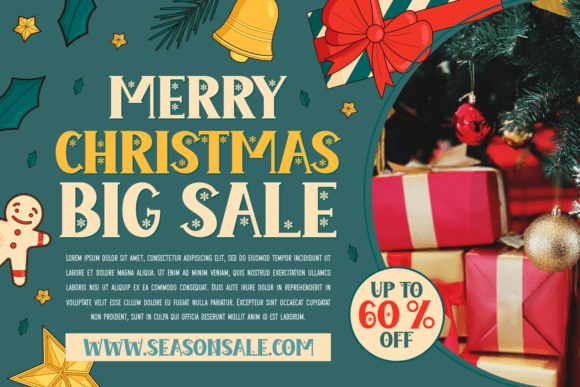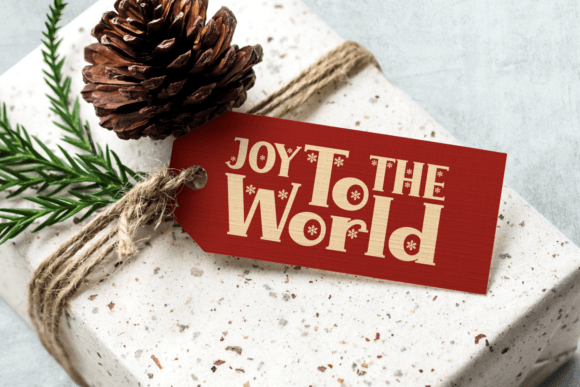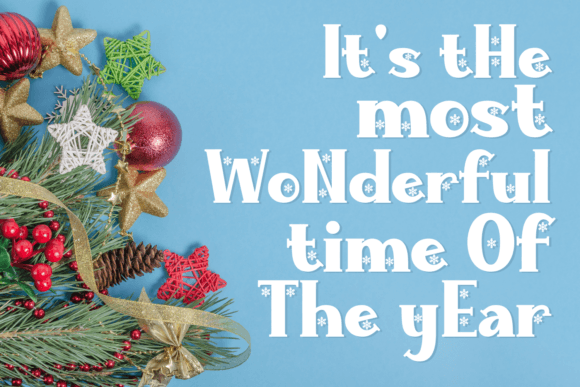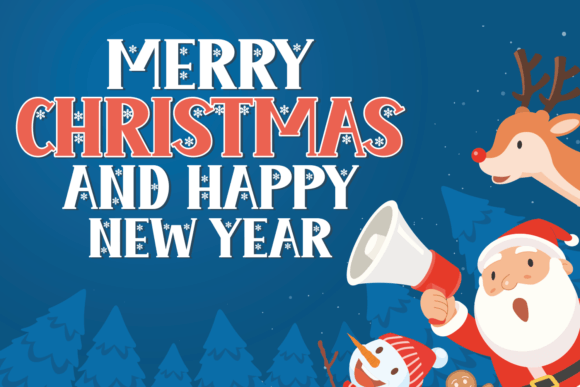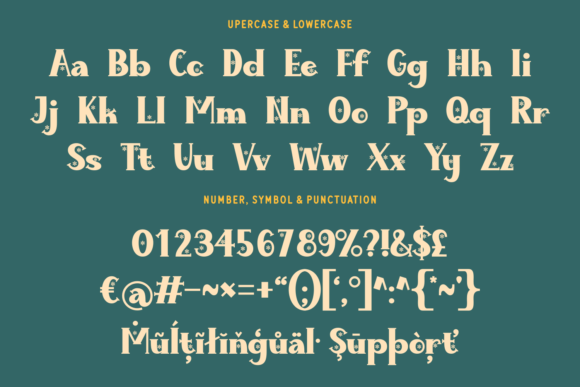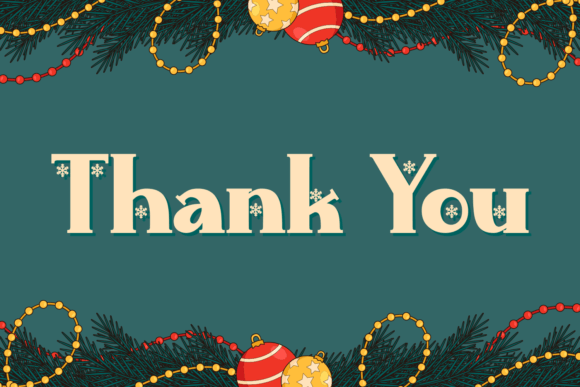
The Magic of Christmas Snowtext Font
Have you ever found yourself browsing through design inspiration boards on a cold winter’s evening, dreaming of the perfect font to capture the essence of the holiday season? If so, you’re not alone. As designers, we’re always on the lookout for that one special font that can transport our creations to a world of festive wonder. For those moments, Christmas Snowtext Font is here to save the day.
This joyful and festive decorative font is the perfect addition to any designer’s library, guaranteed to elevate any project with its magical charm. Whether you’re creating holiday cards, social media graphics, or even a festive blog post, Christmas Snowtext Font has the potential to make your designs truly shine. With its unique blend of whimsy and elegance, this font is an absolute must-have for any designer looking to add a touch of Christmas magic to their work.
Key Features of Christmas Snowtext Font
- Font Style: Unique, handwritten, and decorative font with a festive feel, perfect for Christmas and winter-themed designs.
- Unique Characteristics: Features intricate snowflakes and festive patterns, adding a touch of magic to your designs.
Designer Review: Christmas Snowtext Font
Overall, I’d say the Christmas Snowtext Font has its charm. Here are some things it gets right:
- ✨ Unique aesthetic: The font has a fun, playful feel to it, which is perfect for festive designs and projects.
- ✨ Versatility: While it’s marketed as a Christmas font, it could work well for other winter-themed projects or even for a whimsical feel in general design.
- ✨ Readability: The font is generally easy to read, even at smaller sizes, which is essential for designs where legibility matters.
- ⚠️ Limited character set: The font might not include all the characters you need for a particular project, which could be frustrating if you’re working with a specific language or character set.
- ⚠️ Not suitable for body text: While the font works well for headlines and titles, it might not be the best choice for body text due to its playful, ornate nature.
- ⚠️ Potential for overuse: The font’s festive feel could become overwhelming if used too extensively, so be sure to balance it with other design elements.
Overall, the Christmas Snowtext Font is a fun and unique addition to any design toolbox. While it has some limitations, it can add a special touch to festive designs and projects.
The Christmas Snowtext Font is ideal for creating festive holiday designs, such as:
- Holiday cards and invitations
- Christmas party decorations and signs
- Winter-themed social media graphics and posts
For best results, use the font in conjunction with other festive elements, such as snowflakes, holly, or candy canes.